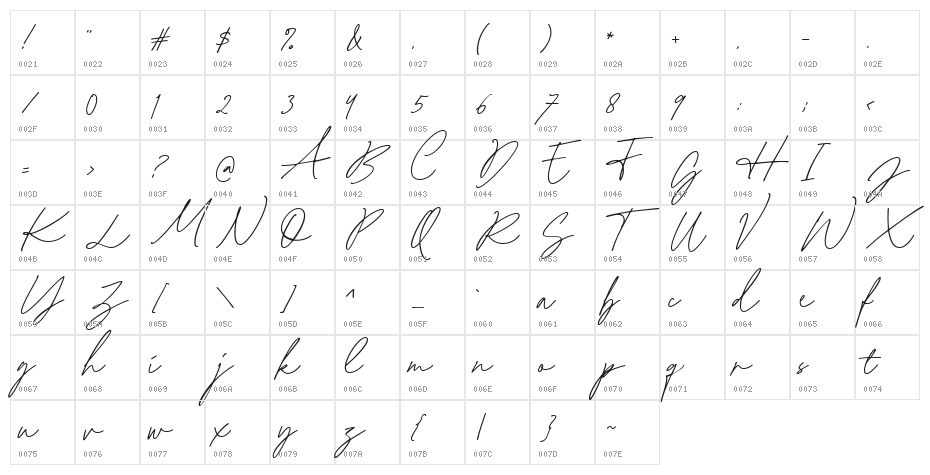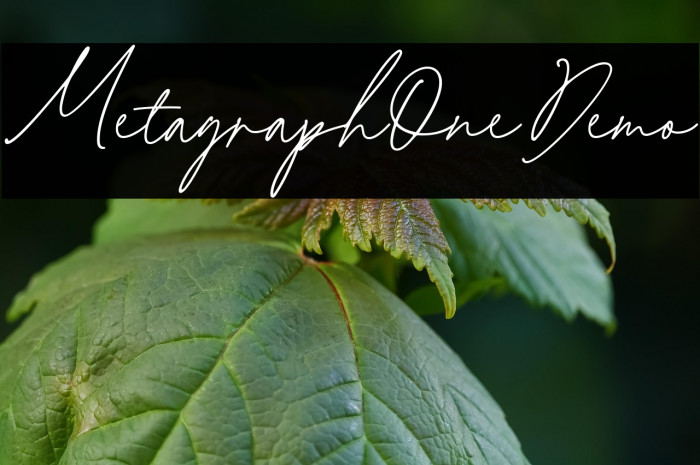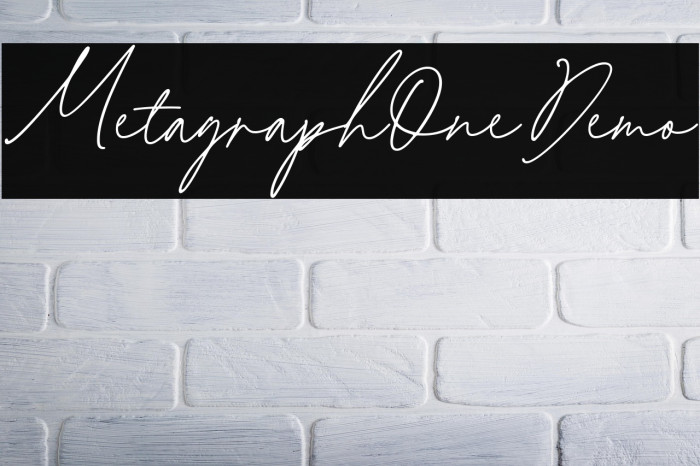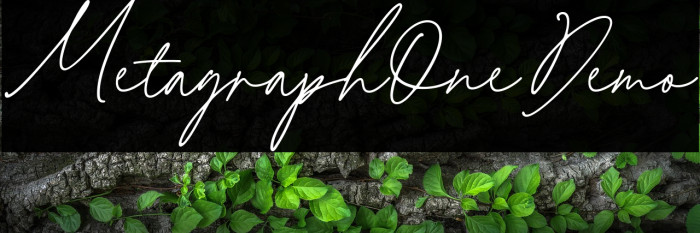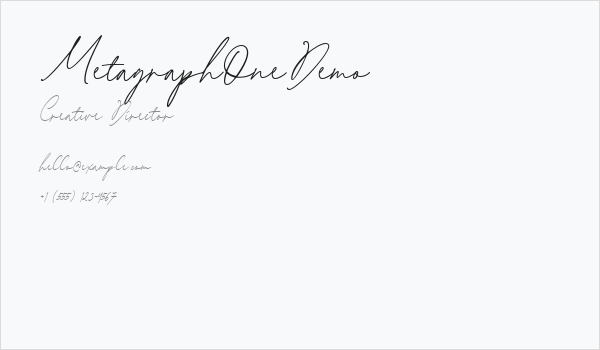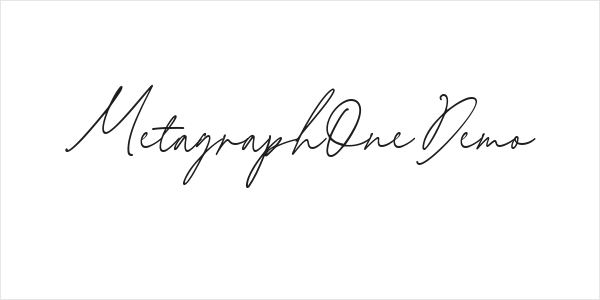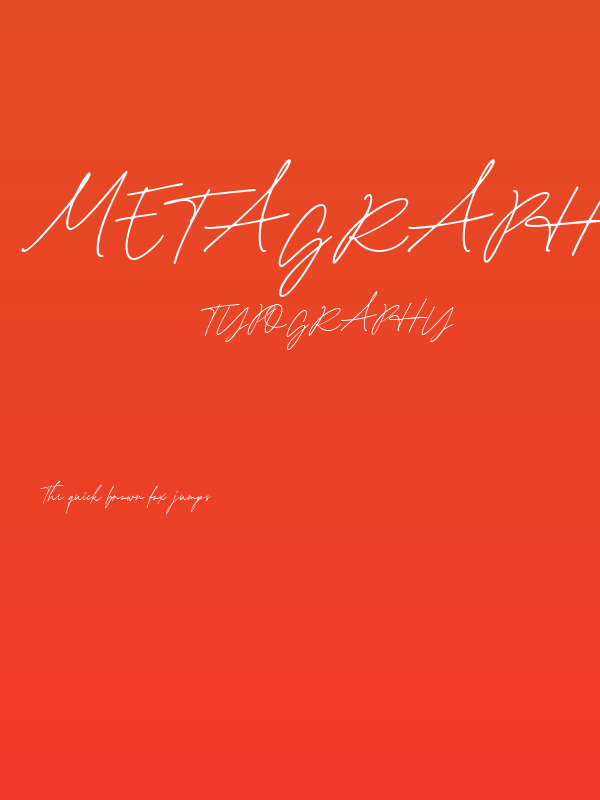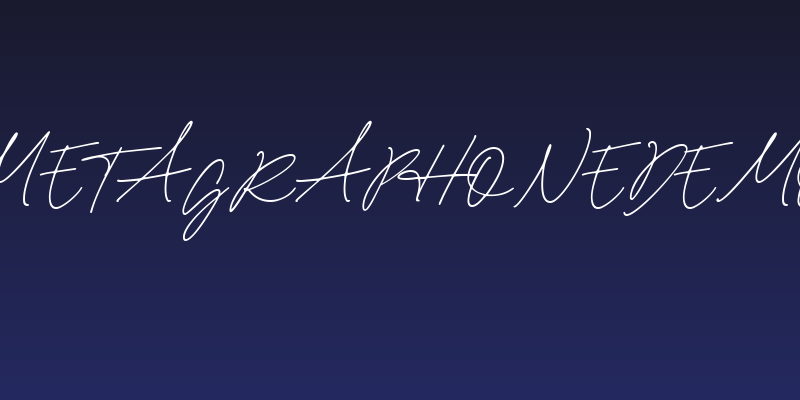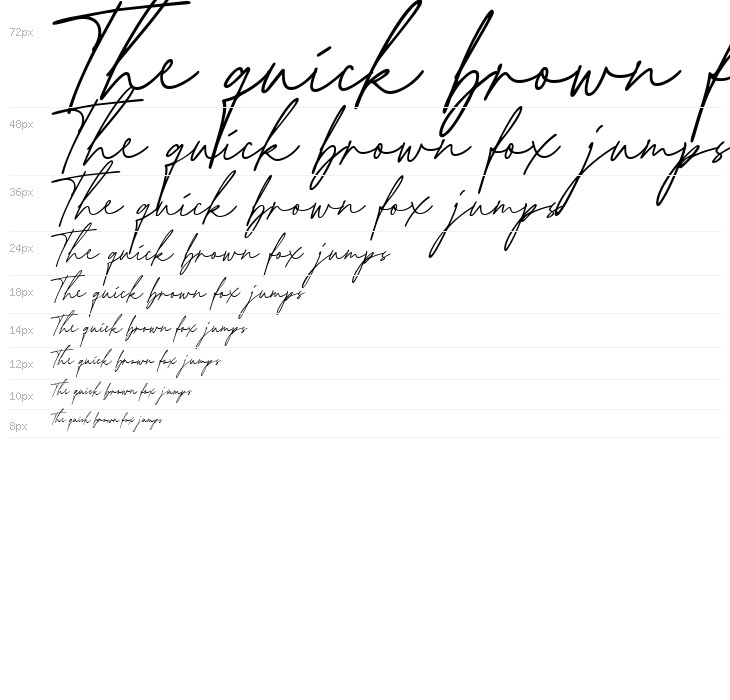
MetagraphOneDemo Font
MetagraphOneDemo Description
This font exhibits a fluid, cursive style that mimics natural handwriting. The strokes are smooth and continuous, giving it an elegant and personal touch. Uppercase letters are slightly larger and more pronounced, while lowercase letters maintain a consistent flow. The numerals and special characters are designed to complement the overall script style, maintaining the same fluidity and elegance. This font is ideal for projects that require a personal or artistic flair, such as invitations, greeting cards, or personal branding materials. The overall appearance is both sophisticated and approachable, making it versatile for various design needs.
| Overall Style | Elegant, Handwritten |
| Use Case | Logos, Invitations, Artistic projects |
| Proposed Projects | Ideal for wedding invitations, personal branding, artistic projects, and greeting cards. |